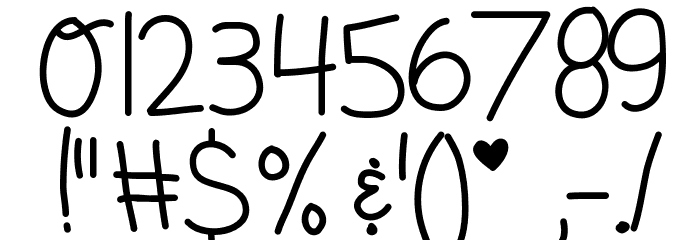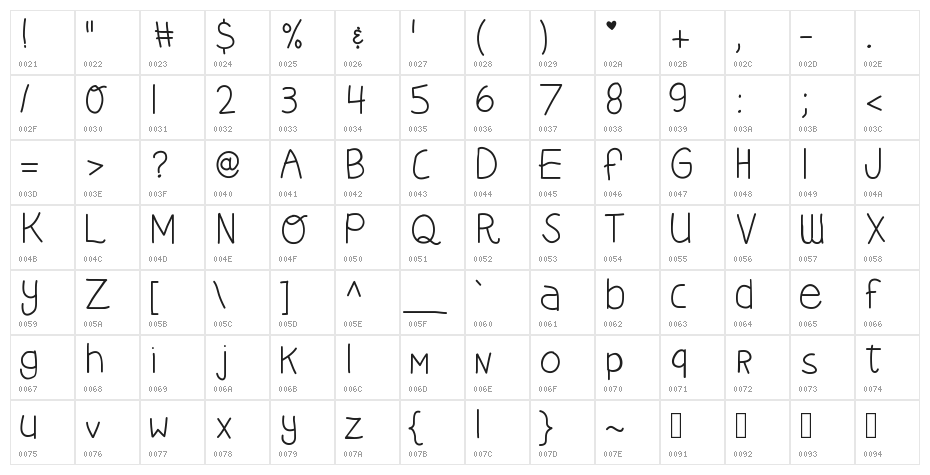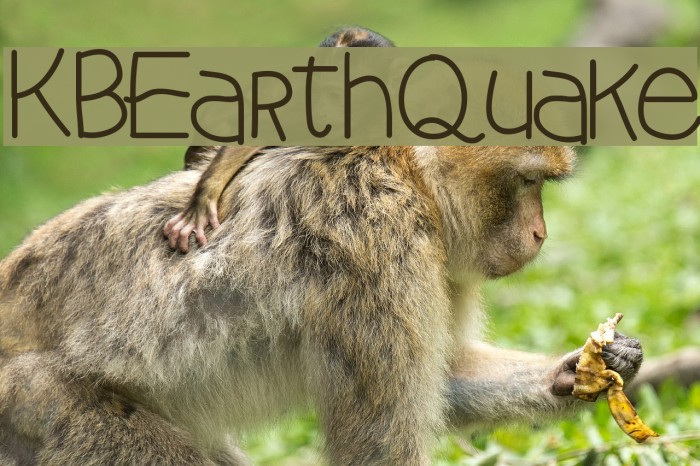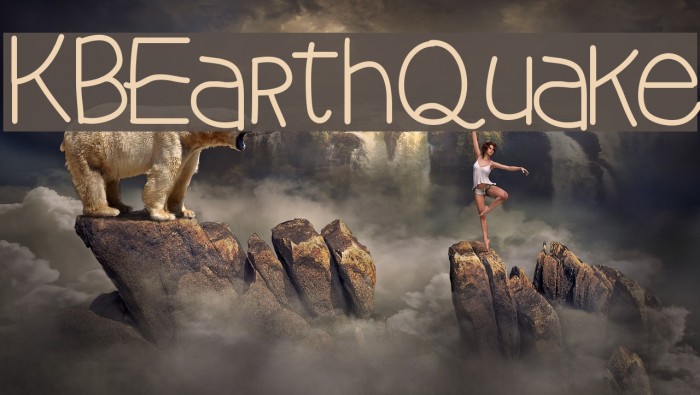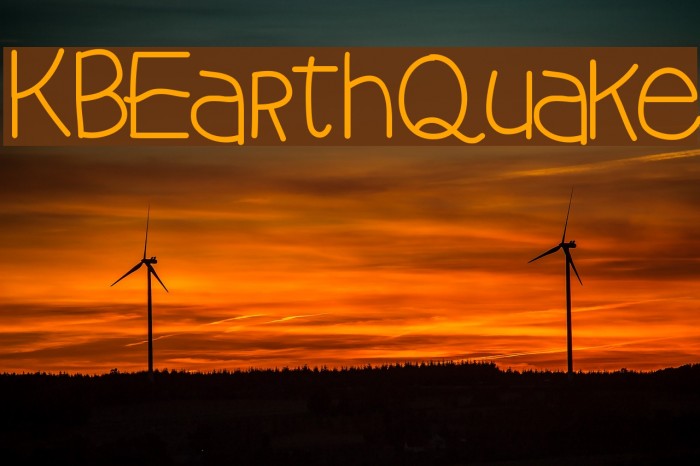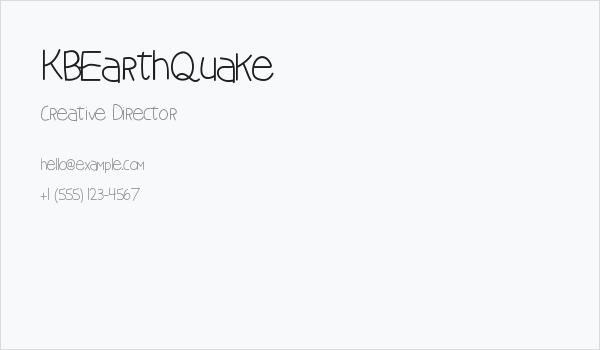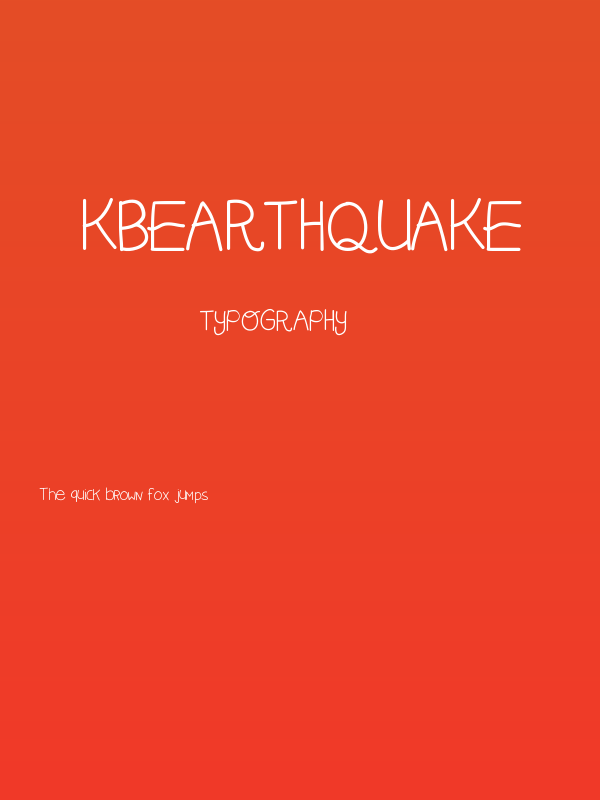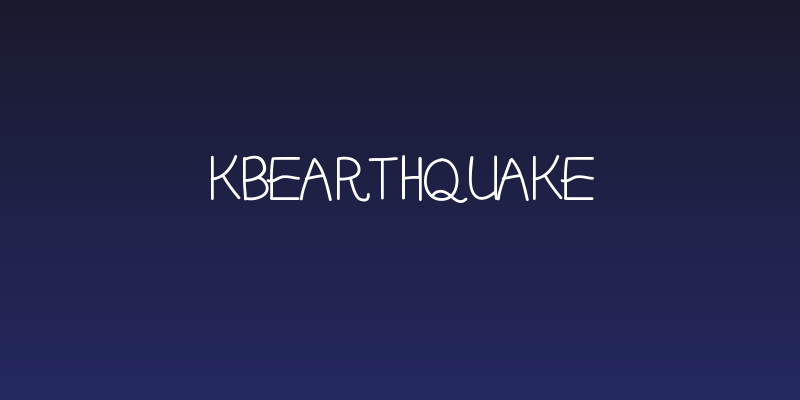
KBEarthQuake Font
KBEarthQuake Description
This playful and whimsical font features a handwritten style with a casual and friendly appearance. The letters are slightly irregular, giving it a natural and organic feel. The strokes are consistent in width, providing a uniform look across all characters. The rounded edges and smooth curves enhance its approachable and informal vibe. This font is versatile and can be used in various creative projects where a personal touch is desired. The numerals and special characters maintain the same playful aesthetic, making it suitable for a wide range of applications.
| Proposed Projects | Ideal for children's books, greeting cards, casual branding, and social media graphics. |